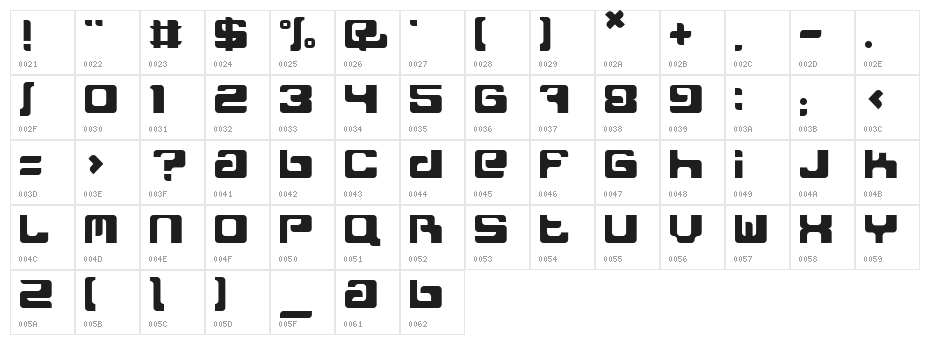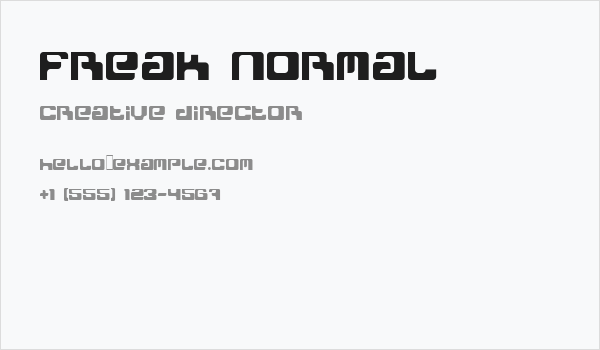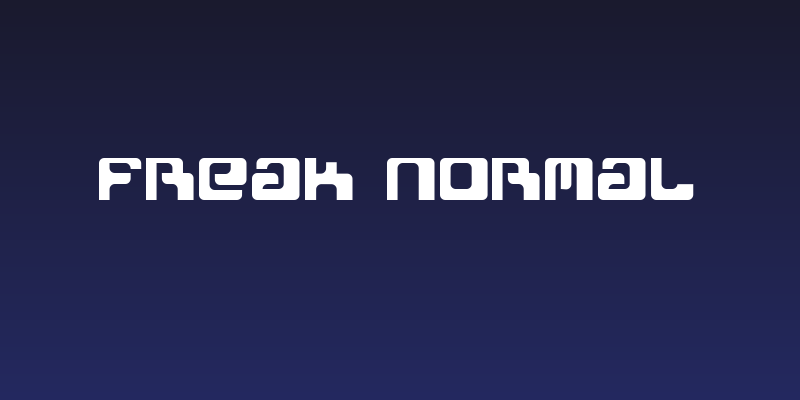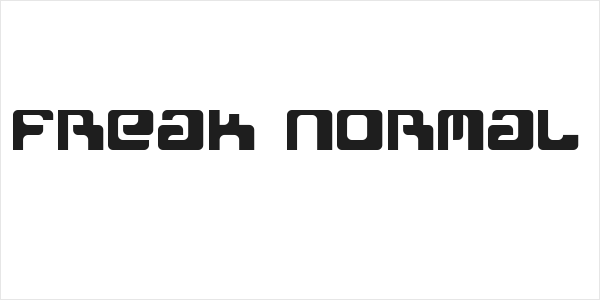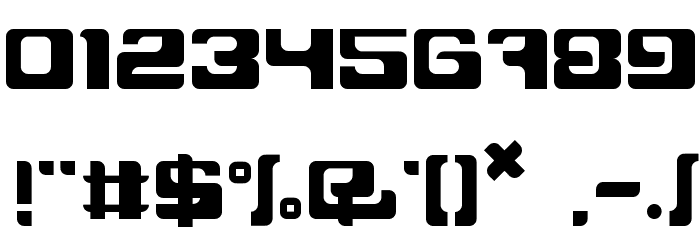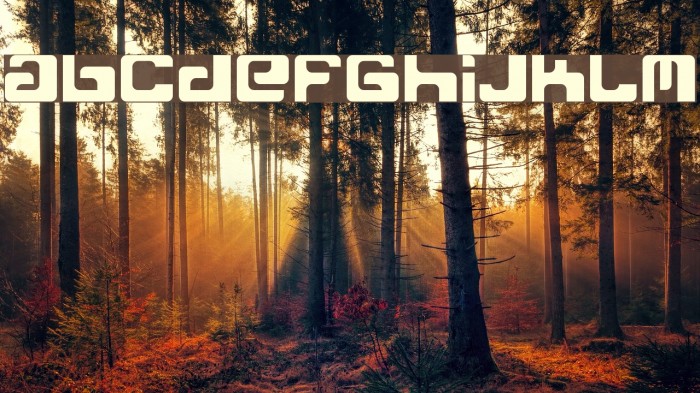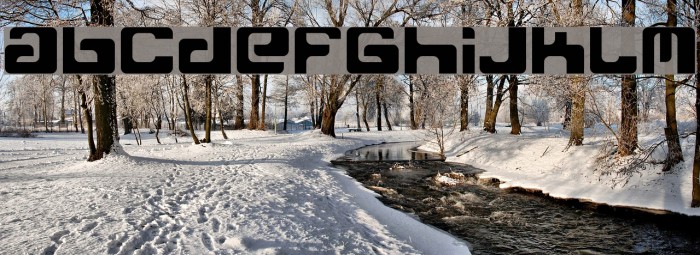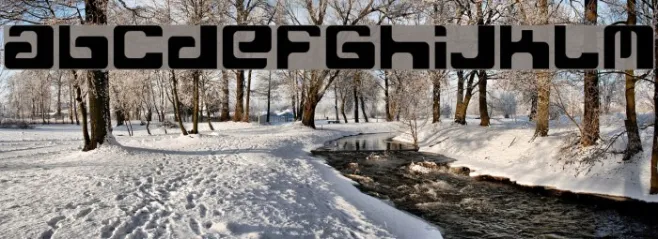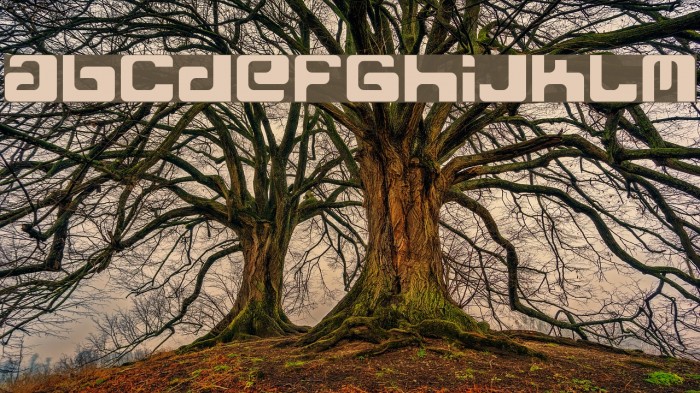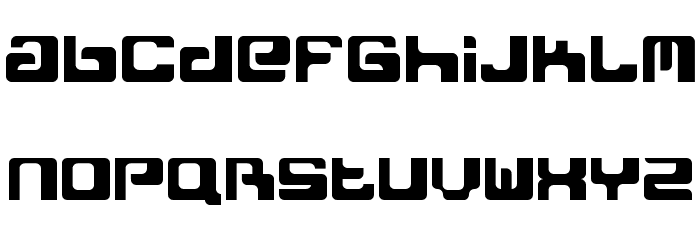
Freak Normal Font
Freak Normal Description
This font features a bold, futuristic design with a distinctly geometric aesthetic. The characters are constructed with thick, uniform strokes, creating a strong visual impact. The rounded edges and consistent line weight contribute to a modern and cohesive appearance. The font's unique style is characterized by its block-like structure, which gives it a digital and tech-inspired feel. The uppercase and lowercase letters maintain a consistent height, enhancing readability while preserving the font's distinctive style. The numerals and special characters are designed to complement the overall look, ensuring versatility across various applications.